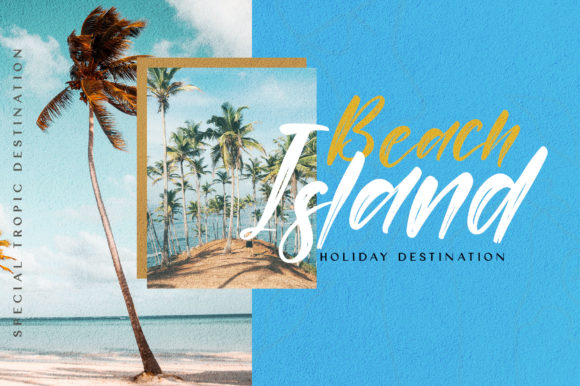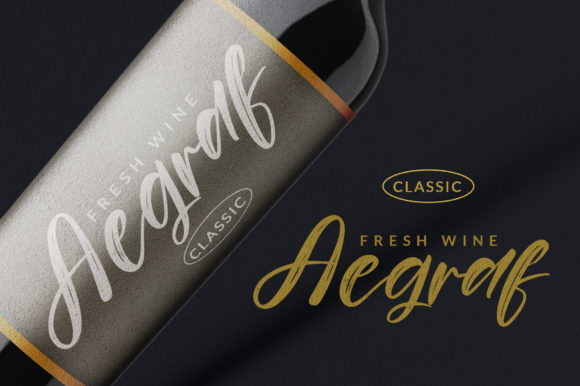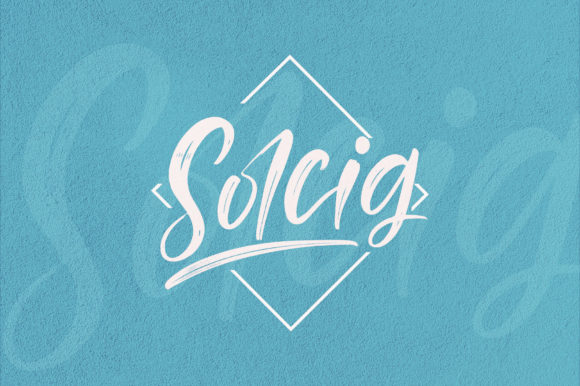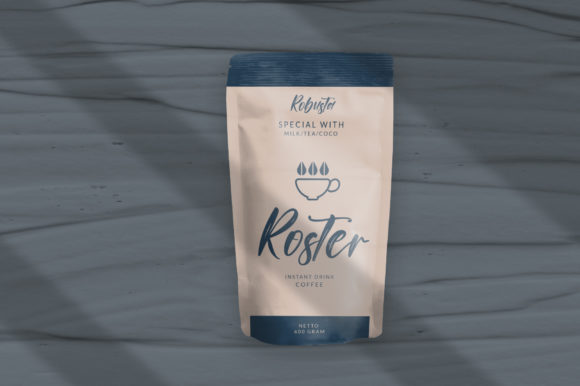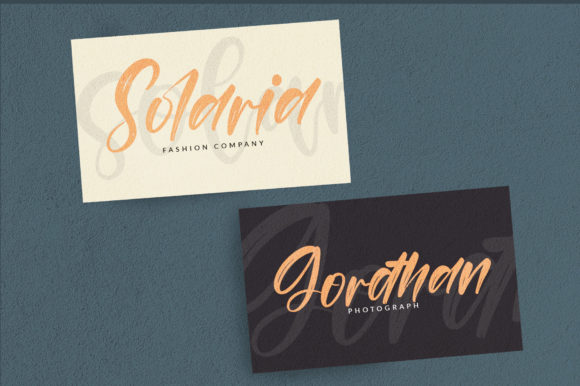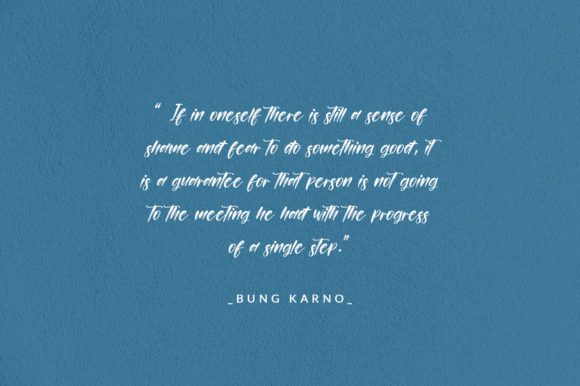
Introduction to Persitent Font Font
Fonts play a crucial role in design, and the Persitent Font font is a typeface that brings both character and versatility to any project. Whether you’re working on a branding project, a website, or a print design, the Persitent Font font offers a unique style that can elevate your work.
Persitent is a stylish handwritten font.
It will add a luxury spark to any design project that you wish to create This font is PUA encoded which means you can access all of the amazing glyphs and ligatures with ease.
Key Features of Persitent Font Font
Why Choose Persitent Font Font?
The Persitent Font font is more than just a typeface – it’s a design tool that helps you communicate your message with style and clarity. Its unique character set and versatile design make it suitable for a wide range of applications, from elegant invitations to bold headlines.
With its carefully crafted letterforms and balanced proportions, the Persitent Font font ensures readability and visual appeal across all mediums.
What makes Persitent Font font special?
The Persitent Font font stands out with its unique design, exceptional readability, and versatility across various design applications.